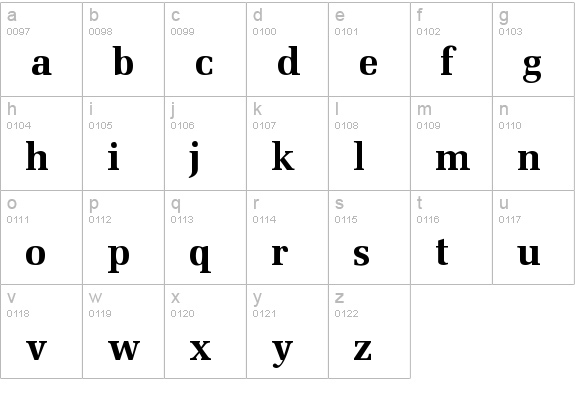
Memoir fed Font Details
Memoir fed font is a timeless and elegant typeface that exudes sophistication and class. Its graceful letterforms and delicate serifs give it a refined and polished look that is perfect for adding a touch of luxury to any design project. The Memoir fed font is free to download and use, making it accessible to designers and creatives looking for a high-quality typeface without breaking the bank. Whether you're working on a branding project, invitation design, or any other creative endeavor, Memoir fed font is sure to elevate your work with its timeless beauty and effortless style. You can easily access and download Memoir fed font for free at FontsMarket.com, so don't miss out on this stunning typeface for your next project.